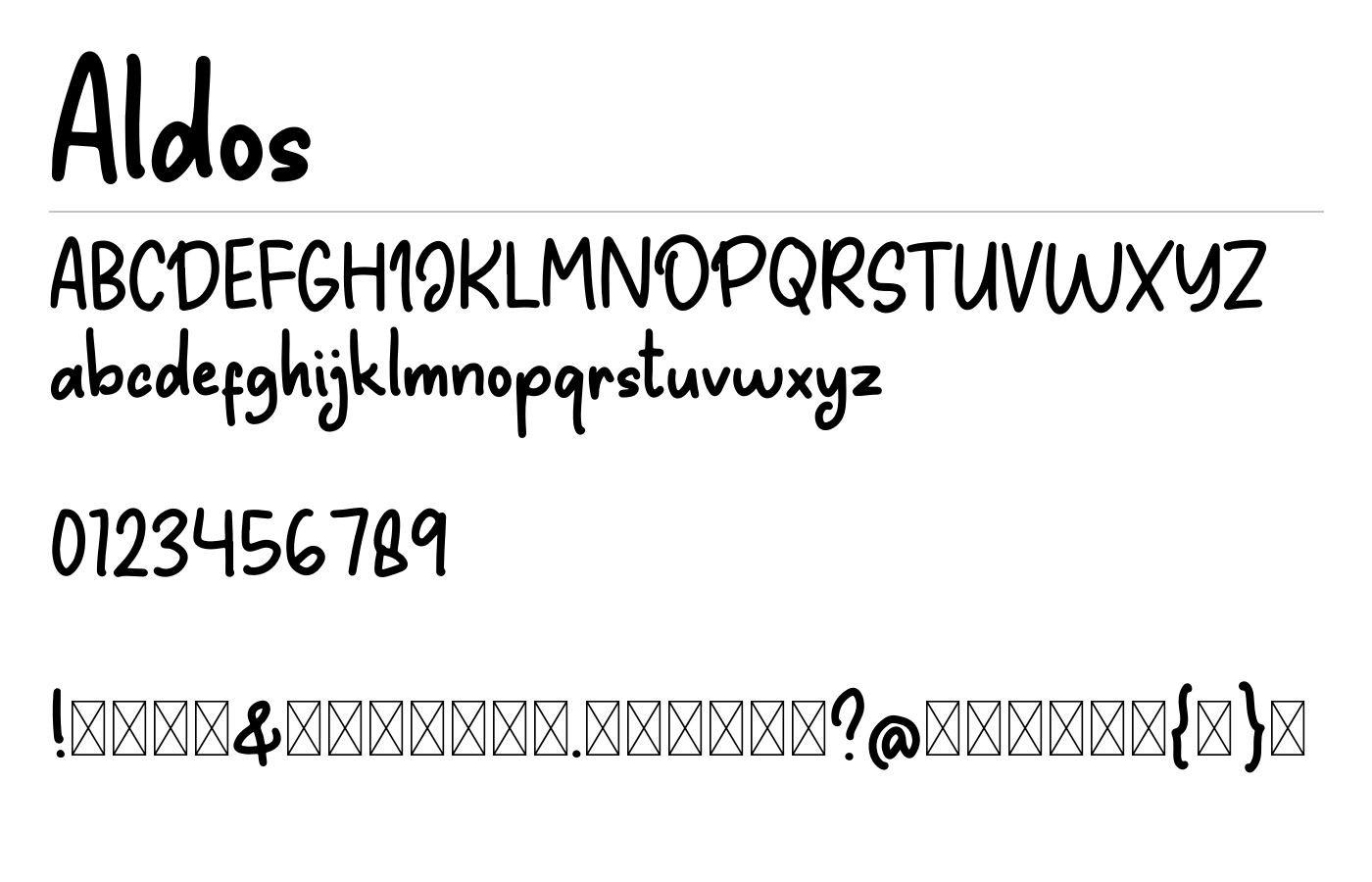
Aldos is a casual, handwritten sans serif font with a playful and approachable character. Its irregular, slightly rounded strokes and tall x-height give it an informal yet legible feel, making it ideal for friendly branding, children’s content, and relaxed editorial use. This font shines in contexts that benefit from a warm, personal touch, such as invitations, posters, and educational materials.
Aldos Font
About Aldos Font